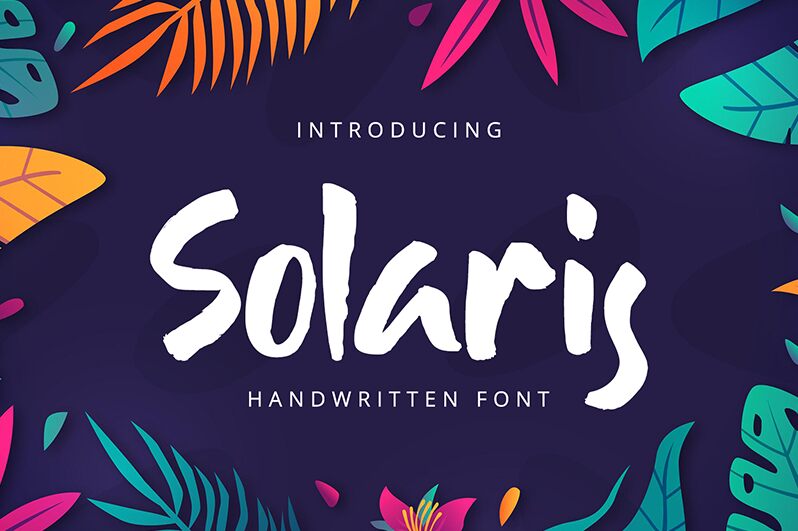
Solaris
Solaris, designed by Alpaprana Studio, is a captivating brush font that exudes creative energy. With its semi-bold weight and semi-condensed width, Solaris commands attention and adds a touch of boldness to any project.
Perfect for branding and logo design, this font effortlessly captures the essence of modernity and sophistication. Its organic strokes and dynamic curves make it ideal for fashion magazines, trendy blogs, and advertising campaigns seeking an edgy yet elegant look.
Let Solaris unleash your creativity with its distinctive style that is sure to captivate audiences across various design projects.